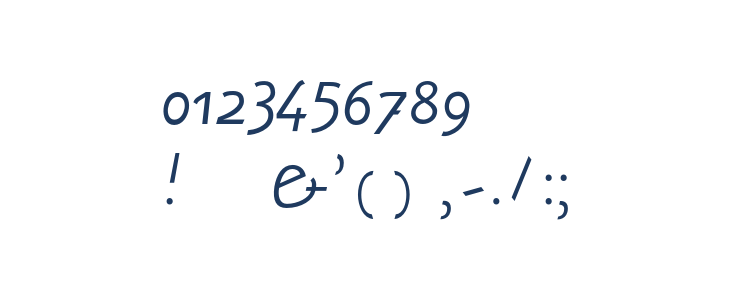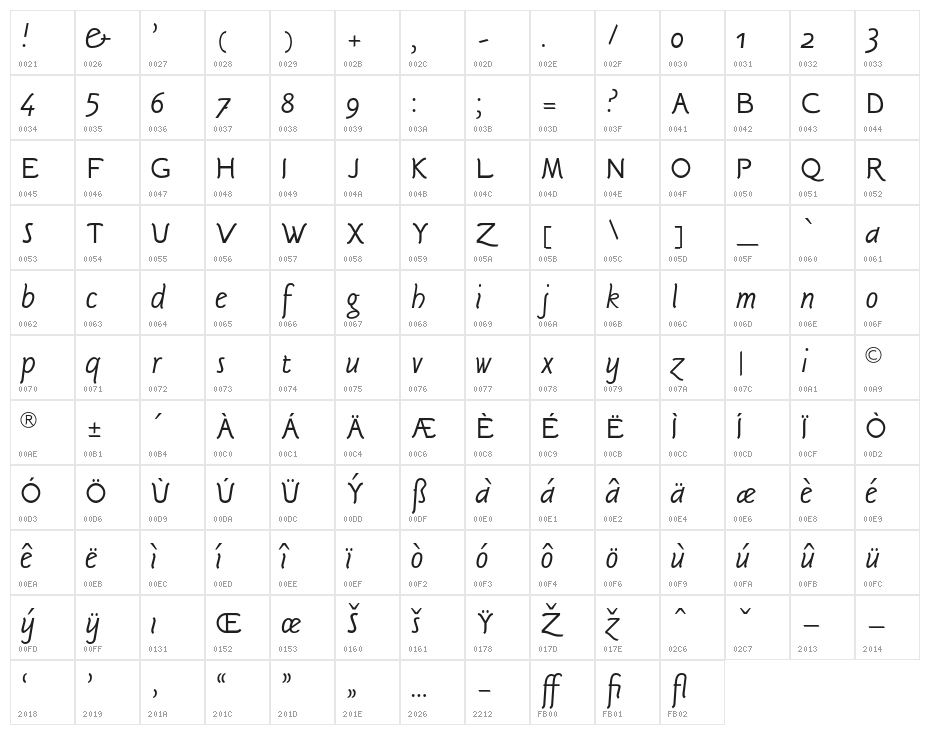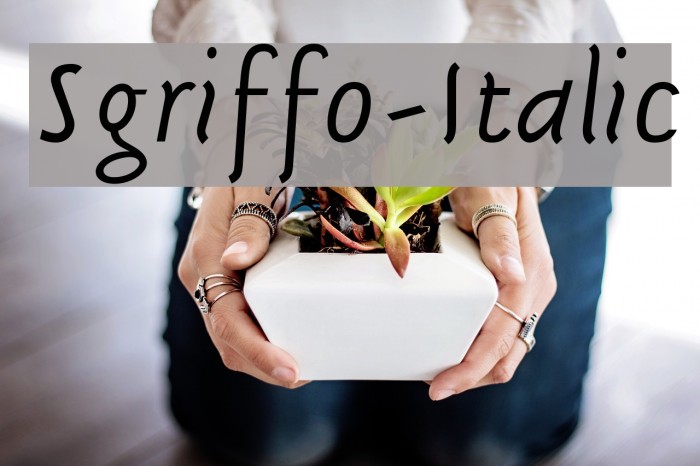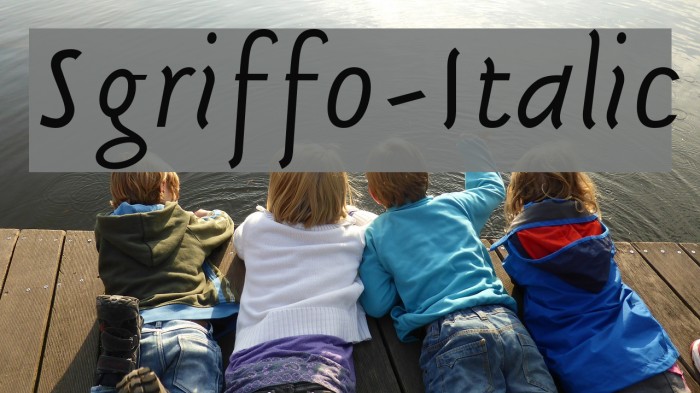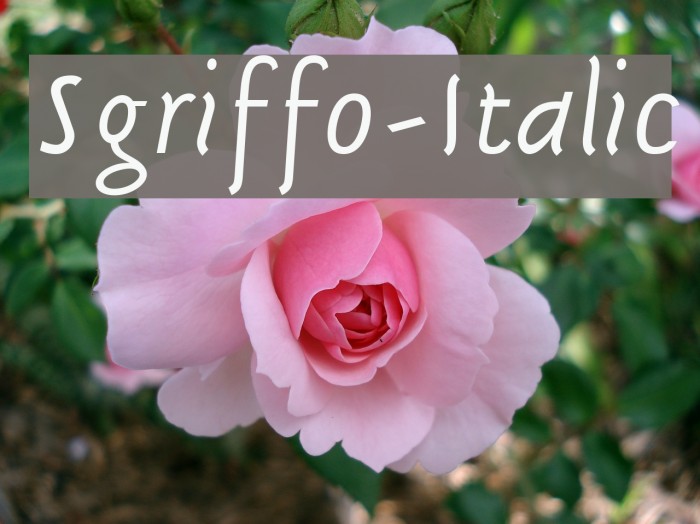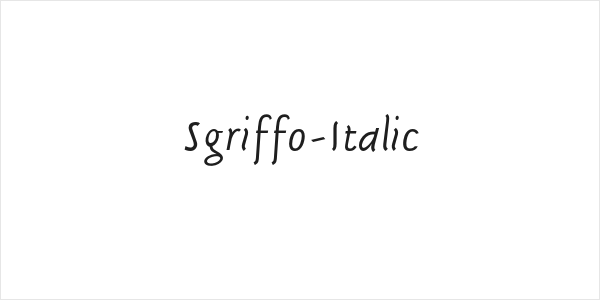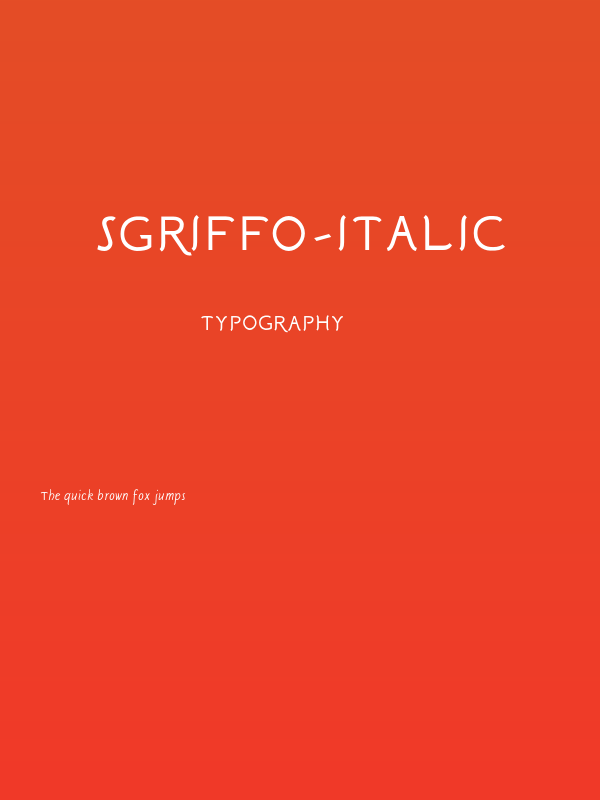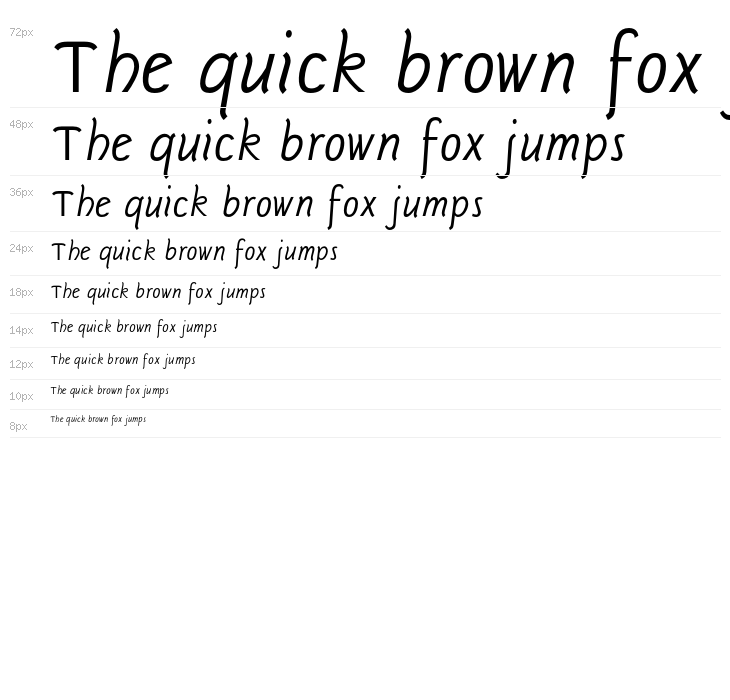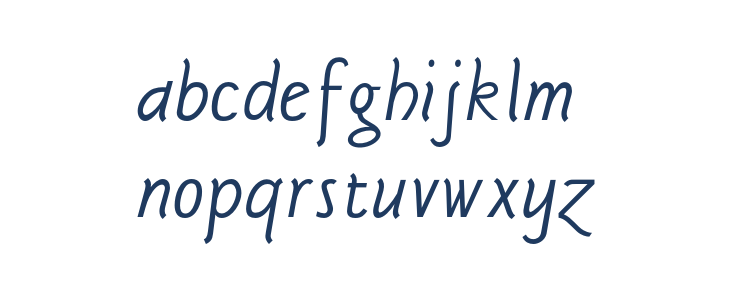
Sgriffo-Italic Font
Sgriffo-Italic Description
This font features a classic italic style with elegant, flowing curves and a refined appearance. The uppercase letters are slightly taller than the lowercase, maintaining a consistent slant that adds a sense of motion and sophistication. The numerals are distinct and clear, with a slight tilt that complements the overall italic theme. Special characters are well-integrated, maintaining the font's cohesive look. The strokes are moderately thick, providing a balanced contrast that enhances readability while retaining an artistic flair.
| Proposed Projects | Ideal for formal invitations, elegant branding, book covers, and artistic posters. |